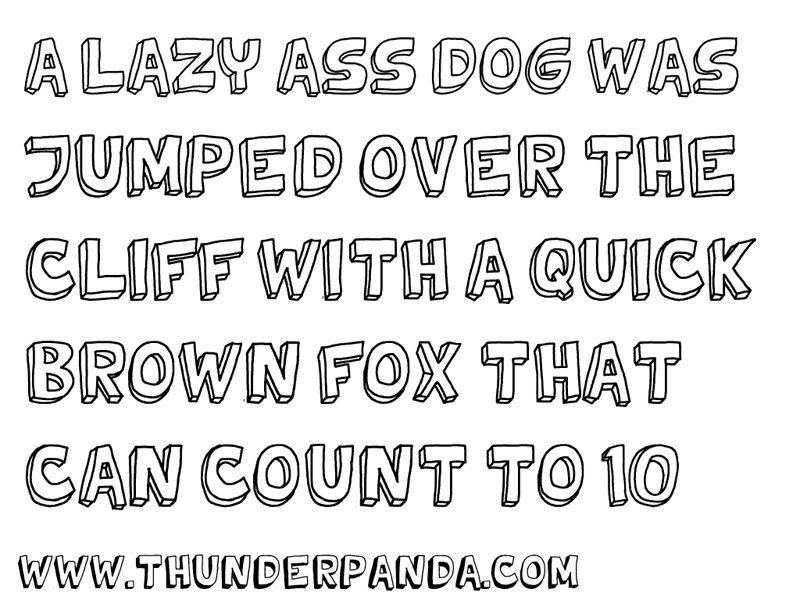
Tweedy, designed by Eric Wiryanata of Deathrockstar, is a free 3d cartoon display font with irregular, blocky capitals and a rough hand-drawn edge. Every letter has a hand-cut wobble and visibly changing stroke widths.
It is strongest on children's event posters, where the uneven forms can set an upbeat, mischievous theme. The same loose construction also suits comic publishing, game graphics, and playful merchandise with an illustrated approach. Repeated offset shadows and crooked contours let the lettering become part of a doodled scene rather than feeling like ordinary typeset copy in children's entertainment.